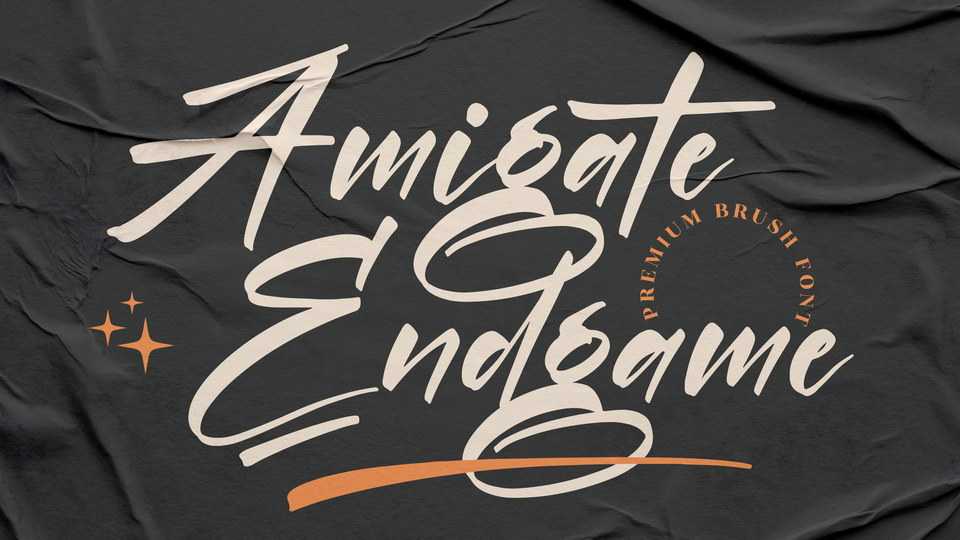
Download Amigate Endgame font, a gorgeous handwritten typeface, crafted to give headlines or logotype a stylish touch. Amigate Endgame font reads as strong, confident, and dynamic and can add tons of trendy character to your designs.